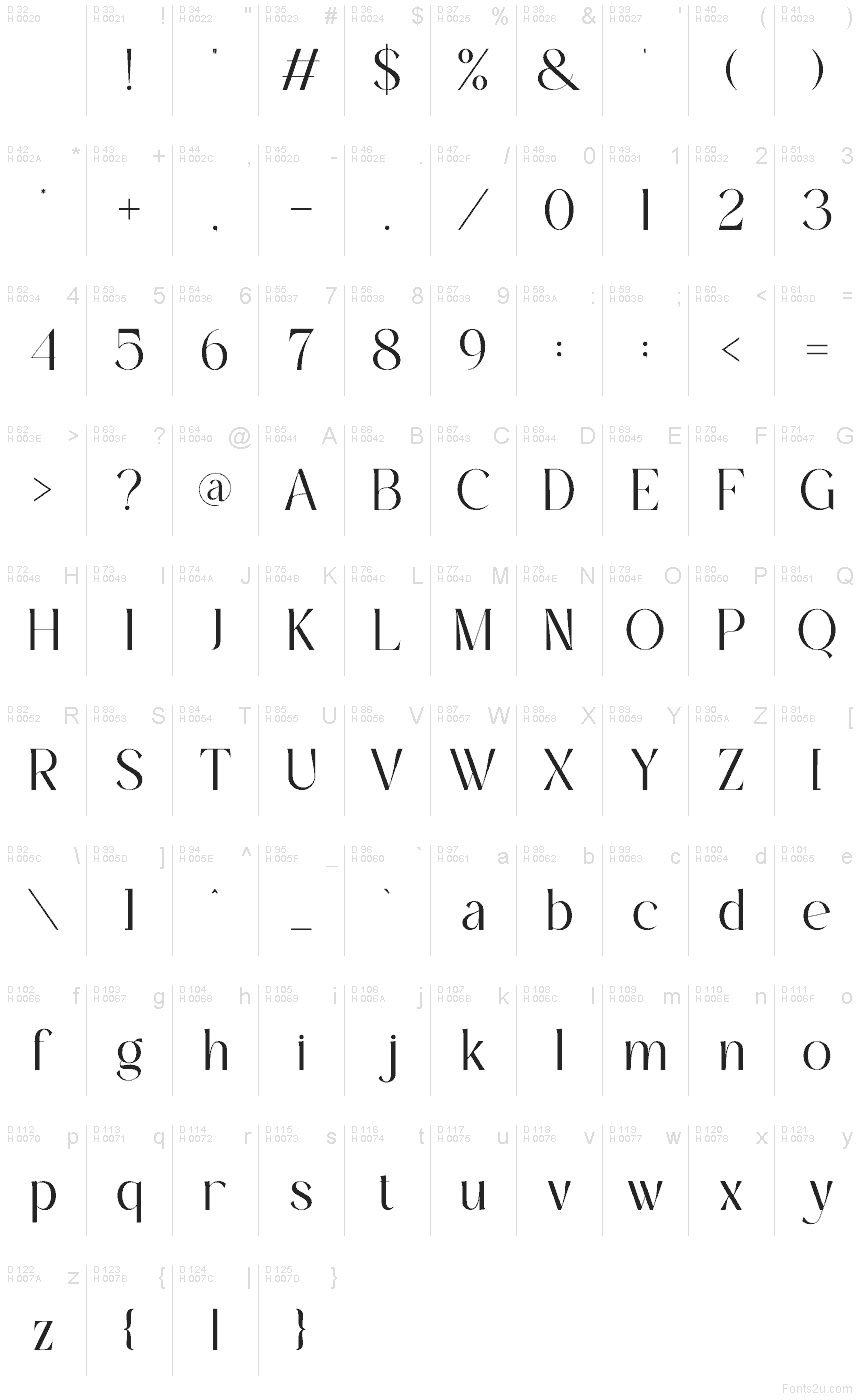
Qarine
Qarine font by Ermedia Studio is a free modern serif display font. Its glossy, cut-glass strokes and sculpted curves create a luxe rhythm—think crisp verticals meeting inky, crescent-like bowls with a flick of flourish. Built to command attention, Qarine brings couture energy to headlines while staying readable enough for short blocks of copy.
Using Qarine, projects instantly feel polished and editorial. It shines on fashion branding, magazine mastheads, perfume or cosmetics packaging, boutique logos, wedding stationery, and bold poster headlines. Set it large so the fine contrasts breathe, and add a touch of tracking for air. This free font pairs beautifully with a quiet grotesque sans for body text to let those elegant shapes do the talking.